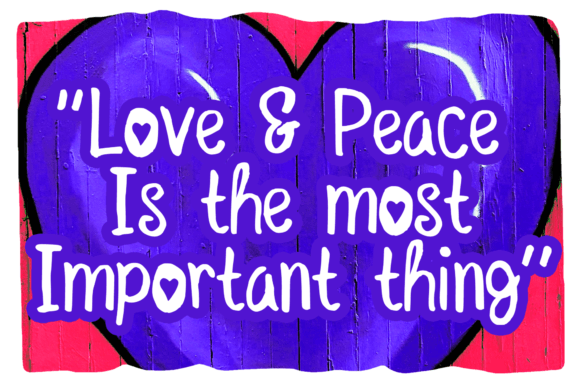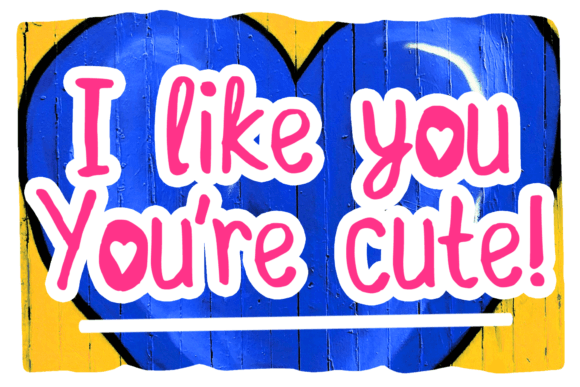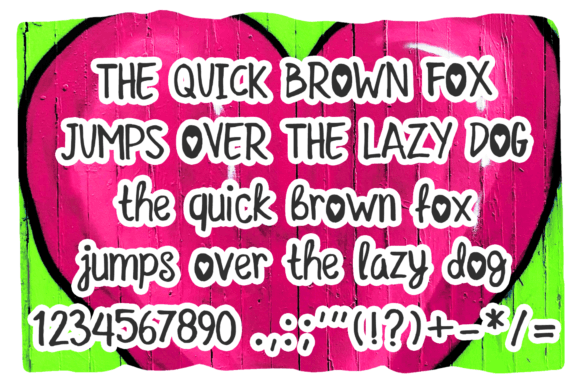
Hello Balcony Font: The Perfect Addition to Your Design Collection
Are you a designer or crafter looking for a font that can add a touch of casual elegance to your projects? Look no further than the Hello Balcony Font. This lovely handmade paint font is incredibly versatile and can be used for a wide range of designs, from t-shirts and book designs to packaging, greeting cards, stickers, and posters.
What Makes Hello Balcony Font So Special?
Hello Balcony Font is a unique and charming font that is perfect for adding a personal touch to your designs. Its handmade paint style gives it a warm and inviting feel that is sure to capture the attention of your audience. Whether you’re creating designs for a special occasion like Christmas or Valentine’s Day, or just want to add a touch of whimsy to your projects, Hello Balcony Font is the perfect choice.
Uses for Hello Balcony Font
The possibilities are endless when it comes to using Hello Balcony Font. Here are just a few ideas to get you started:
- T-shirts and apparel: Add a casual touch to your t-shirt designs with Hello Balcony Font. Its relaxed, handwritten style is perfect for creating fun and laid-back designs.
- Book designs: Use Hello Balcony Font to add a personal touch to your book covers, illustrations, or quotes. Its elegant style is sure to make your book designs stand out.
- Packaging: Add a touch of whimsy to your product packaging with Hello Balcony Font. Its handmade style is perfect for creating unique and eye-catching packaging designs.
- Greeting cards and invitations: Create beautiful and heartfelt greeting cards and invitations with Hello Balcony Font. Its elegant style is sure to make your cards and invitations special.
- Stickers and posters: Use Hello Balcony Font to create fun and colorful stickers and posters. Its bold and playful style is perfect for creating designs that will grab attention.
Why Choose Hello Balcony Font?
There are many fonts to choose from, but Hello Balcony Font stands out from the rest. Here are just a few reasons why:
- Unique and charming style: Hello Balcony Font has a unique and charming style that is sure to capture the attention of your audience.
- Incredibly versatile: Hello Balcony Font can be used for a wide range of designs, from casual to elegant.
- Handmade paint style: The handmade paint style of Hello Balcony Font gives it a warm and inviting feel that is sure to make your designs stand out.
- Perfect for special occasions: Hello Balcony Font is perfect for creating designs for special occasions like Christmas, Valentine’s Day, and more.
Tips for Using Hello Balcony Font
Here are a few tips for using Hello Balcony Font:
- Experiment with different colors: Hello Balcony Font looks great in a variety of colors. Experiment with different colors to find the one that works best for your design.
- Pair with other fonts: Hello Balcony Font pairs well with other fonts. Try pairing it with a bold font for a fun and playful look.
- Use for headlines and titles: Hello Balcony Font is perfect for headlines and titles. Its bold and playful style is sure to grab attention.
Hello Balcony Font is a lovely handmade paint font that is perfect for adding a touch of casual elegance to your designs. Its incredibly versatile style makes it perfect for a wide range of designs, from t-shirts and book designs to packaging, greeting cards, stickers, and posters. With its unique and charming style, Hello Balcony Font is sure to make your designs stand out. So why wait? Fall in love with Hello Balcony Font and start creating lovely designs today!